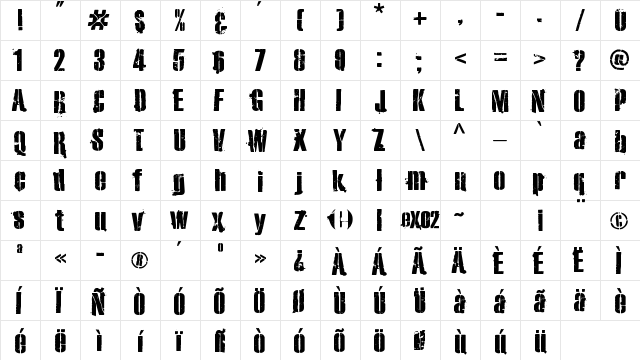
eXO2 Stencil Regular
| Designer | Jos頢Beraka" Lobos |
eXO2 Stencil has the rough pragmatism of spray-painted stencil signage, adding a raw, street-level authenticity to designs.
Ideal for industrial branding, streetwear, military-adjacent aesthetics, and urban signage projects.
Pro Tip: Pair eXO2 Stencil with raw, utilitarian design elements — exposed concrete textures, flat colour, and minimal ornamentation suit it well.